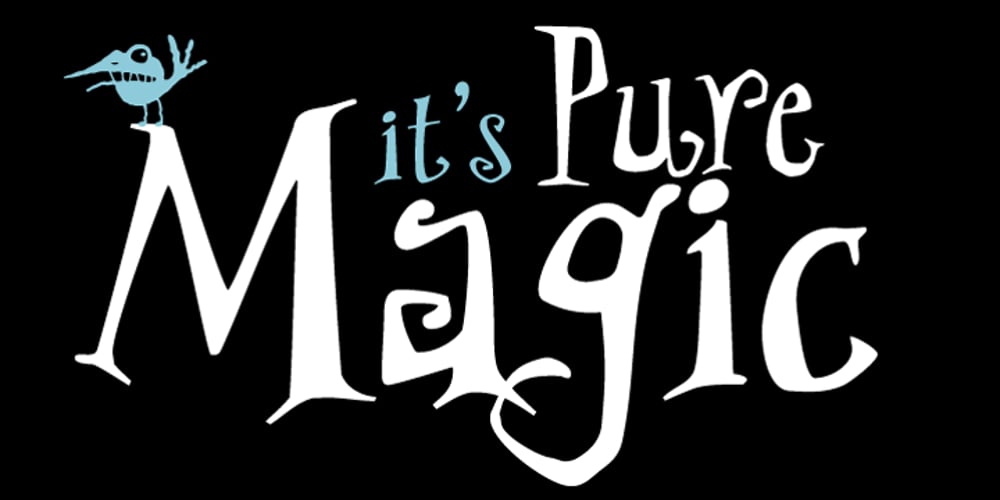
PF Wonderland Pro
PF Wonderland Pro font
PF Wonderland Pro Font Family was designed by Dimitris Foussekis and published by Parachute. PF Wonderland Pro contains 1 styles and family package options. Alice in Wonderland. Innocent, emotional, almost childish, looks like it just came out of a fairy tale. The long stems, quirky serifs and loose characters, as well its youthful energy, establish an emotional attachment to this typeface. So perfect for children’s books. Designer Dimitris Foussekis completed this font with a matching series of 62 pictograms the so-called ‘Wonderbats’. Now, the brand new ‘Pro’ version has been expanded to include all European languages by supporting simultaneously Latin, Greek and Cyrillic scripts.